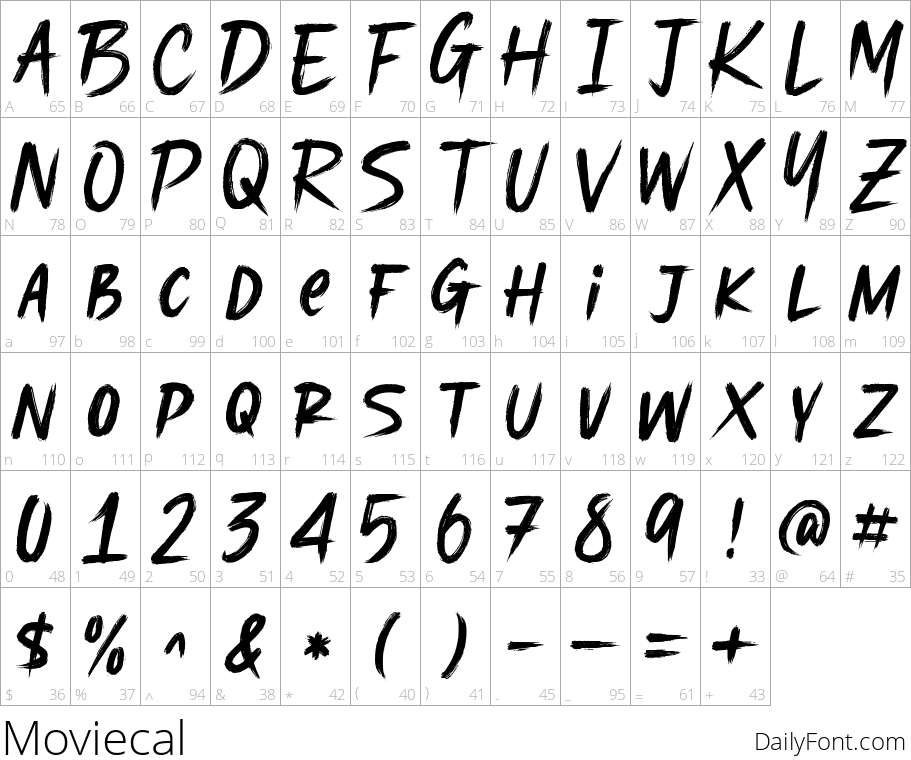
Moviecal
Introducing Moviecal, the ultimate brushed display font that brings an urban vibe to your designs. This cool font is perfect for creating eye-catching labels and striking posters that stand out. With its unique brushed texture, Moviecal effortlessly captures the essence of street art and contemporary design, making it an ideal choice for projects that aim to convey a bold and creative message.
Whether you're crafting promotional materials for a film festival, designing edgy merchandise, or enhancing your digital content, Moviecal will elevate your project to new heights. Its versatile design allows it to adapt seamlessly to various applications, ensuring that your work leaves a lasting impression. Dive into the urban aesthetic with Moviecal and let your creativity flow with every brush stroke.